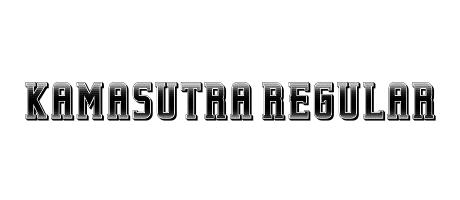
Kamasutra
Kamasutra Regular: A bold, sans-serif typeface exudes a strong, almost imposing presence. Its thick strokes and subtle beveling create a sense of depth and weight, suggesting power and authority. The letters are uniformly sized and spaced, lending an air of classic elegance to its robust design. The overall effect is one of confident, timeless style.